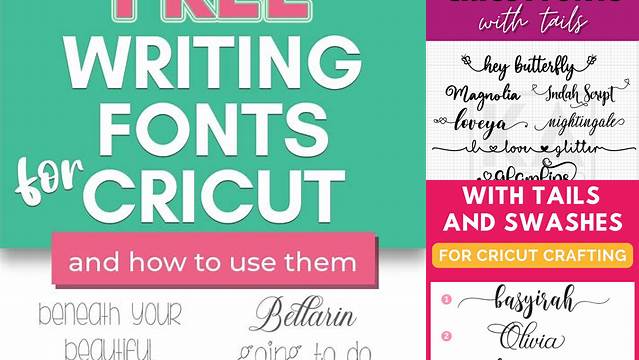
Free Script Fonts For Cricut: The Ultimate Guide
Hey crafters! Are you looking to add a touch of elegance and personality to your Cricut projects? Script fonts are the way to go! They can transform your designs, making them look professional and oh-so-chic. But let's be real, finding the perfect free script fonts for Cricut can feel like searching for a needle in a haystack. That's why we've created this ultimate guide, packed with everything you need to know about using script fonts in your Cricut projects. We'll cover where to find amazing free options, how to download and install them, and even some tips and tricks for working with script fonts in Cricut Design Space. So, grab your favorite crafting beverage and let's dive in!
1. Best Websites to Find Free Script Fonts for Cricut
Finding the right resource for free script fonts for Cricut is crucial. There are tons of websites out there, but not all of them are created equal. You want to make sure you're downloading fonts from reputable sources to avoid any malware or copyright issues. Some of our absolute favorite websites for discovering amazing script fonts include DaFont, FontSpace, and Creative Fabrica (they often have freebies!). These sites offer a vast selection of fonts, ranging from elegant calligraphy styles to playful handwritten scripts. The best part? They're all free for personal use! When browsing, take your time to explore different categories and styles. Look for fonts that match the aesthetic of your project, whether it's a wedding invitation, a personalized gift, or a home decor piece. Remember to always check the font license before using it for commercial purposes. Many free fonts come with a personal use license, which means you can use them for your own projects but not for selling products. If you plan to sell your creations, you'll need to find fonts with a commercial license or purchase one. So, start exploring these fantastic websites and get ready to find the perfect free script fonts for Cricut for your next project!
4. Connecting Letters in Script Fonts for Cricut
One of the trickiest parts about using free script fonts for Cricut is getting those letters to connect seamlessly. Unlike print fonts where each letter stands alone, script fonts are designed to flow together, creating a beautiful, handwritten look. But sometimes, Cricut Design Space doesn't automatically connect the letters perfectly, leaving awkward gaps or overlaps. Don't fret, guys! There's a simple solution. The key is to use the letter spacing and kerning tools in Cricut Design Space. After you've typed your text and selected your script font, you'll notice a tool called "Letter Spacing" in the top menu. This allows you to adjust the space between each letter. Lowering the letter spacing will bring the letters closer together, while increasing it will create more space. Play around with this setting until the letters are just touching or slightly overlapping. For more fine-tuned adjustments, you can use the "Ungroup to Letters" function. This separates each letter into its own layer, allowing you to move and rotate them individually. This gives you complete control over how the letters connect. Simply select the letters you want to adjust and use the arrow keys on your keyboard to nudge them into the perfect position. Once you're happy with the letter connections, select all the letters and click the "Weld" button in the bottom right corner of the screen. This will fuse the letters together into a single shape, ensuring a smooth and continuous cut with your Cricut machine. Mastering these techniques will help you create flawless script designs with your free script fonts for Cricut, so get practicing!
5. Font Pairing Tips for Cricut Projects
Using free script fonts for Cricut can add a lovely touch to your projects, but sometimes a single font isn't enough. That's where font pairing comes in! Font pairing is the art of combining two or more fonts that complement each other, creating a visually appealing and balanced design. When pairing script fonts, it's essential to choose a secondary font that doesn't compete with the elegance of the script. A good rule of thumb is to pair a script font with a simpler, sans-serif font like Arial, Helvetica, or Open Sans. These clean and modern fonts provide a nice contrast to the flowing lines of the script, making your design easy to read and visually interesting. Another option is to pair a script font with a serif font, like Times New Roman or Georgia. Serif fonts have small decorative strokes at the ends of the letters, which can add a touch of sophistication to your design. However, it's crucial to choose a serif font that isn't too ornate or fussy, as it could clash with the script. When selecting fonts for your project, consider the overall mood and style you're trying to achieve. For example, if you're creating a wedding invitation, you might pair an elegant script with a classic serif font. For a more casual project, you could combine a playful script with a bold sans-serif font. Don't be afraid to experiment with different font combinations until you find one that you love. A great way to test out font pairings is to use online tools or create mockups in Cricut Design Space. With a little practice, you'll be a font pairing pro in no time, creating stunning designs with your free script fonts for Cricut!
6. Using Different Weights and Styles of Script Fonts
Did you know that many free script fonts for Cricut come in different weights and styles? This means you can add even more variation and interest to your designs! Font weight refers to the thickness of the font, ranging from light and thin to bold and heavy. Using different weights of the same script font can create a subtle yet effective contrast in your projects. For example, you might use a light weight for body text and a bold weight for headings or titles. This helps to create a visual hierarchy, guiding the reader's eye and making your design more organized. Font style refers to variations like italics, which slant the letters to the right, or condensed, which makes the letters narrower. Italics can add a touch of elegance and emphasis to your text, while condensed fonts are great for fitting more text into a limited space. When using different styles of script fonts, it's important to use them sparingly. Too many different styles can make your design look cluttered and confusing. A good rule of thumb is to stick to two or three different styles within the same font family. For example, you might use the regular weight for most of your text, the bold weight for headings, and the italic style for emphasis. Experiment with different weights and styles to see what works best for your project. Many free script fonts for Cricut offer these variations, so be sure to explore the different options when you download a font. By using different weights and styles effectively, you can take your script font designs to the next level!
7. Kerning Script Fonts in Cricut Design Space
We touched on connecting letters earlier, but let's dive deeper into kerning, which is super important when working with free script fonts for Cricut. Kerning is the adjustment of space between individual letters in a font. You might be thinking, "Isn't that what letter spacing is for?" Well, not exactly. Letter spacing adjusts the space between all the letters in a word or phrase equally, while kerning allows you to fine-tune the spacing between specific letter pairs. This is crucial for script fonts because some letter combinations just don't look right with the default spacing. For example, the letters "A" and "V" often have a lot of empty space between them, which can make the word look unbalanced. Kerning allows you to move those letters closer together, creating a more visually pleasing result. Cricut Design Space doesn't have automatic kerning, so you'll need to do it manually. As we mentioned before, the "Ungroup to Letters" function is your best friend here. This separates each letter into its own layer, allowing you to move them independently. Zoom in on your text and carefully examine the spacing between each letter pair. If you see any awkward gaps or overlaps, use the arrow keys on your keyboard to nudge the letters into the perfect position. It might seem tedious at first, but trust me, it's worth the effort! Proper kerning can make a huge difference in the overall look of your design, especially when using free script fonts for Cricut. Once you're happy with the kerning, remember to "Weld" the letters together to create a single, smooth shape for cutting.
8. Using Script Fonts for Different Cricut Projects
Free script fonts for Cricut are incredibly versatile and can be used for a wide range of projects. From home decor to personalized gifts, the possibilities are endless! Let's explore some popular ways to incorporate script fonts into your Cricut creations. One of the most common uses for script fonts is in home decor projects. Think about creating custom wall decals with inspirational quotes, designing elegant monograms for throw pillows, or personalizing signs with your family name. Script fonts add a touch of sophistication and charm to any living space. Another fantastic application for script fonts is in personalized gifts. Imagine creating a custom mug with a loved one's name in a beautiful script, designing a personalized tote bag with a meaningful quote, or crafting a heartfelt greeting card with a handwritten-style message. These thoughtful touches make your gifts extra special. Script fonts are also perfect for event stationery, such as wedding invitations, save-the-dates, and thank you cards. An elegant script font can set the tone for your special occasion, adding a touch of romance and sophistication. You can also use script fonts for smaller projects like labels, stickers, and tags. Imagine creating beautiful labels for your pantry containers, designing fun stickers for your planner, or adding a personalized tag to a gift. No matter what project you're working on, there's a free script font for Cricut that's perfect for the job. So, get creative and start exploring the endless possibilities!
10. Troubleshooting Common Issues with Script Fonts in Cricut Design Space
Even with the best free script fonts for Cricut and a solid understanding of Cricut Design Space, you might run into a few hiccups along the way. Don't worry, guys, it happens to the best of us! Let's troubleshoot some common issues and get you back to crafting in no time. One common problem is that your new fonts don't appear in Cricut Design Space after you've installed them. As we mentioned earlier, the first thing to try is restarting Cricut Design Space. This often fixes the issue. If that doesn't work, double-check that you installed the fonts correctly on your computer. Make sure you extracted the font files from the ZIP folder and followed the installation instructions for your operating system. Another issue you might encounter is that your script fonts appear jagged or pixelated in Cricut Design Space. This usually happens if the font file is low-resolution or if you've scaled the font too large. Try using a higher-resolution font or reducing the size of your text. If your letters aren't connecting properly, revisit our tips on letter spacing and kerning. Use the "Ungroup to Letters" function to adjust the spacing between individual letters and then "Weld" them together. Sometimes, Cricut Design Space might have trouble cutting intricate script fonts, especially those with thin lines or delicate details. If this happens, try using a sharper blade, slowing down your cutting speed, and using a more stable material. If you're still having trouble, try simplifying the font by removing some of the finer details. Remember, crafting is all about learning and experimenting. Don't get discouraged if you encounter a few bumps in the road. With a little patience and troubleshooting, you'll be creating beautiful projects with your free script fonts for Cricut in no time!